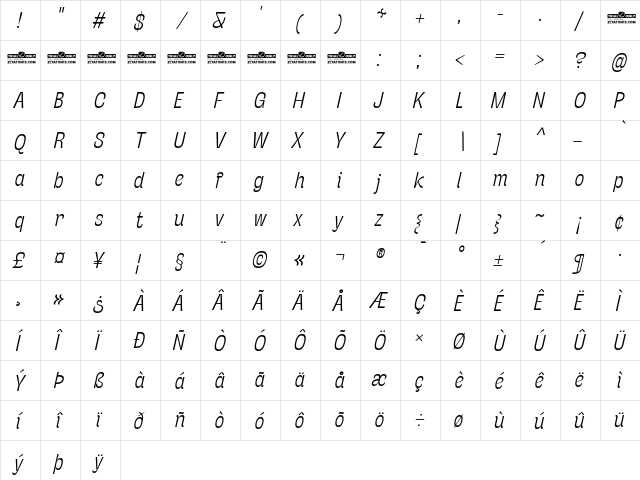
Stinger Slim Trial Light Italic
| Foundry | Studio Kmzero & Zetafonts |
| Designer | Cosimo Lorenzo Pancini |
Design Context for Stinger Slim Trial Typeface
Stinger Slim Trial offers clean, dependable letterforms without strong stylistic allegiance, making it a practical choice for designers who need flexibility. The slanted form adds forward momentum and visual energy. The delicate stroke weight brings airiness and refinement to layouts.